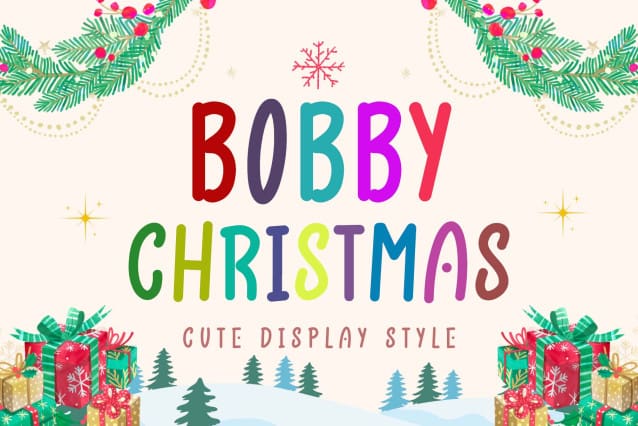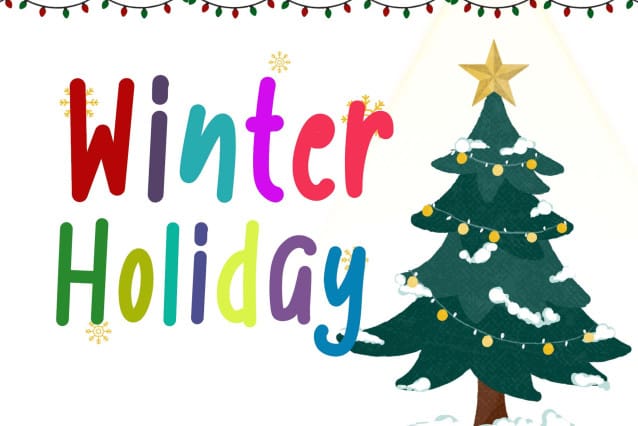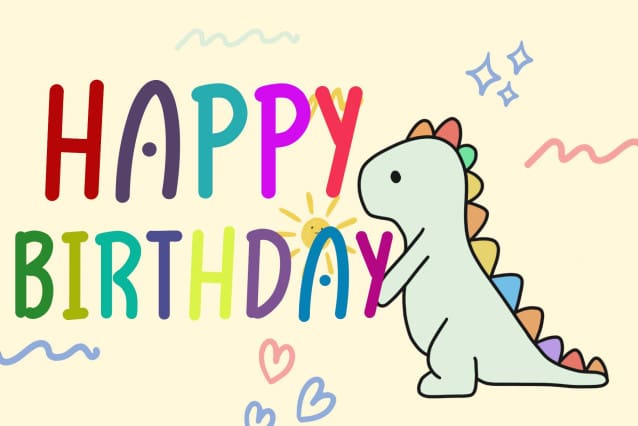
Bobby Christmas Font
Bobby Christmas Font is a unique and cute display font. It comes with uppercase, lowercase, numbers, punctuation, and multilingual support. It is perfect for use on Christmas, winter, parties, holidays, birthdays, Valentine’s, comics, banners, posters, branding, stickers, and more.